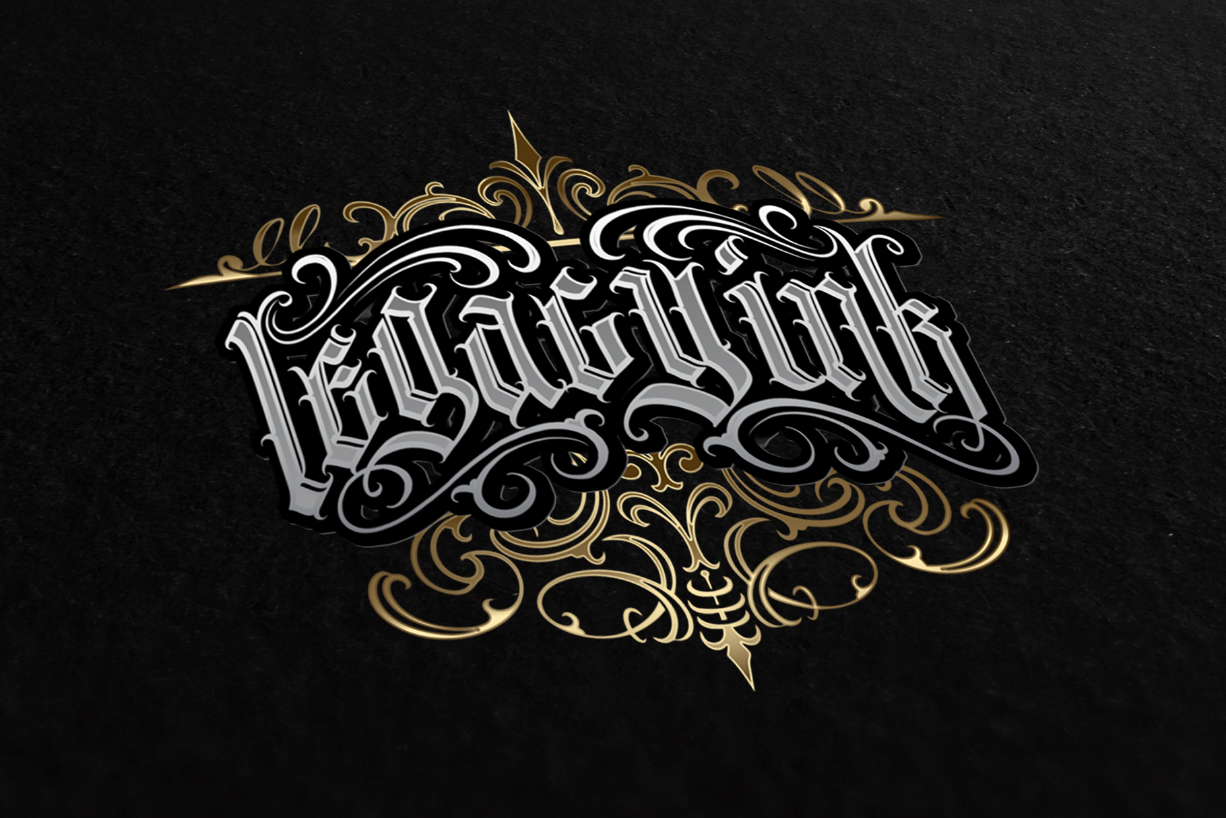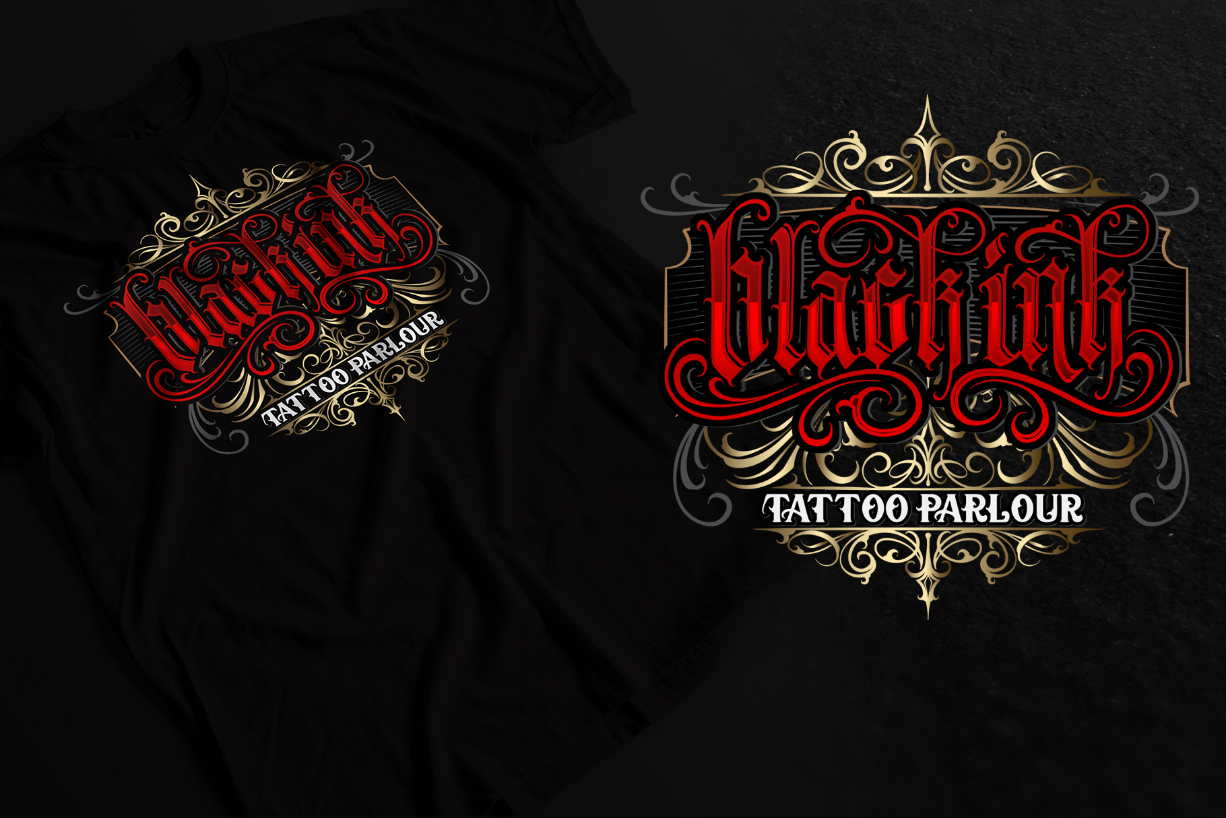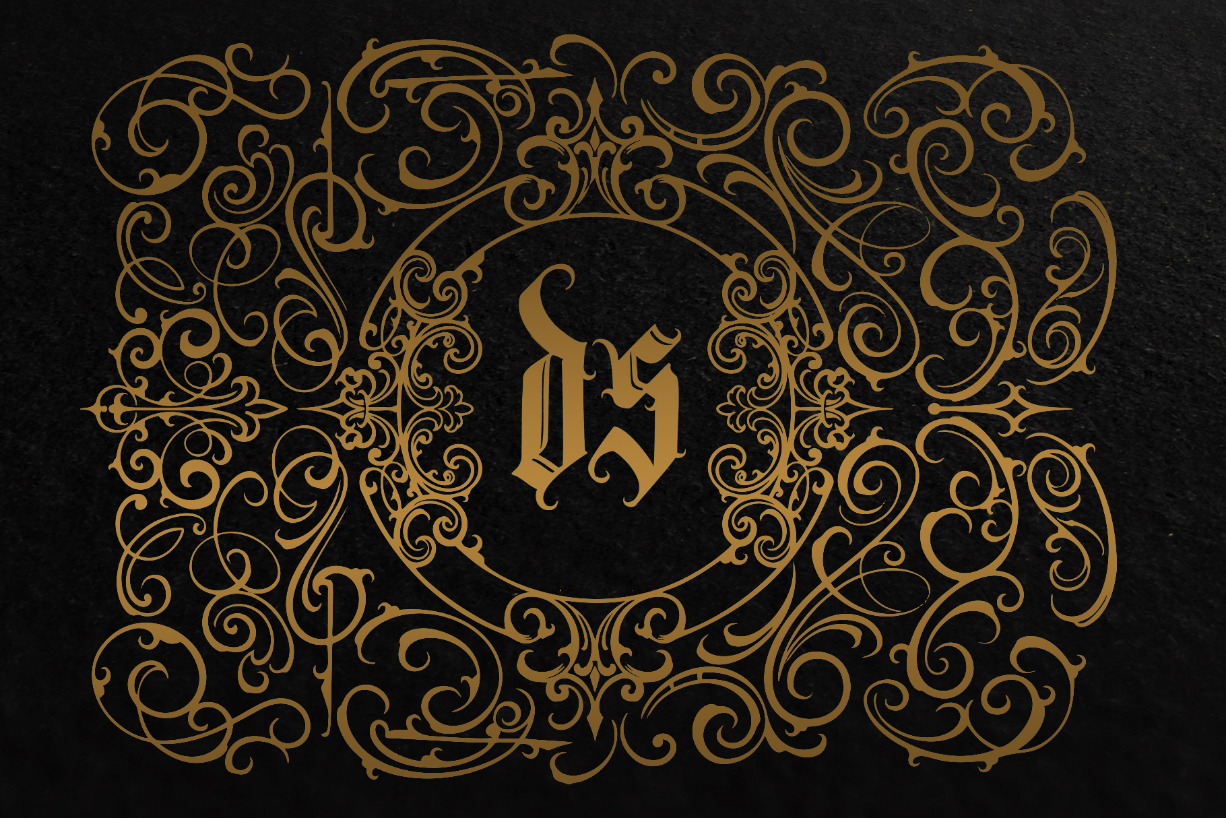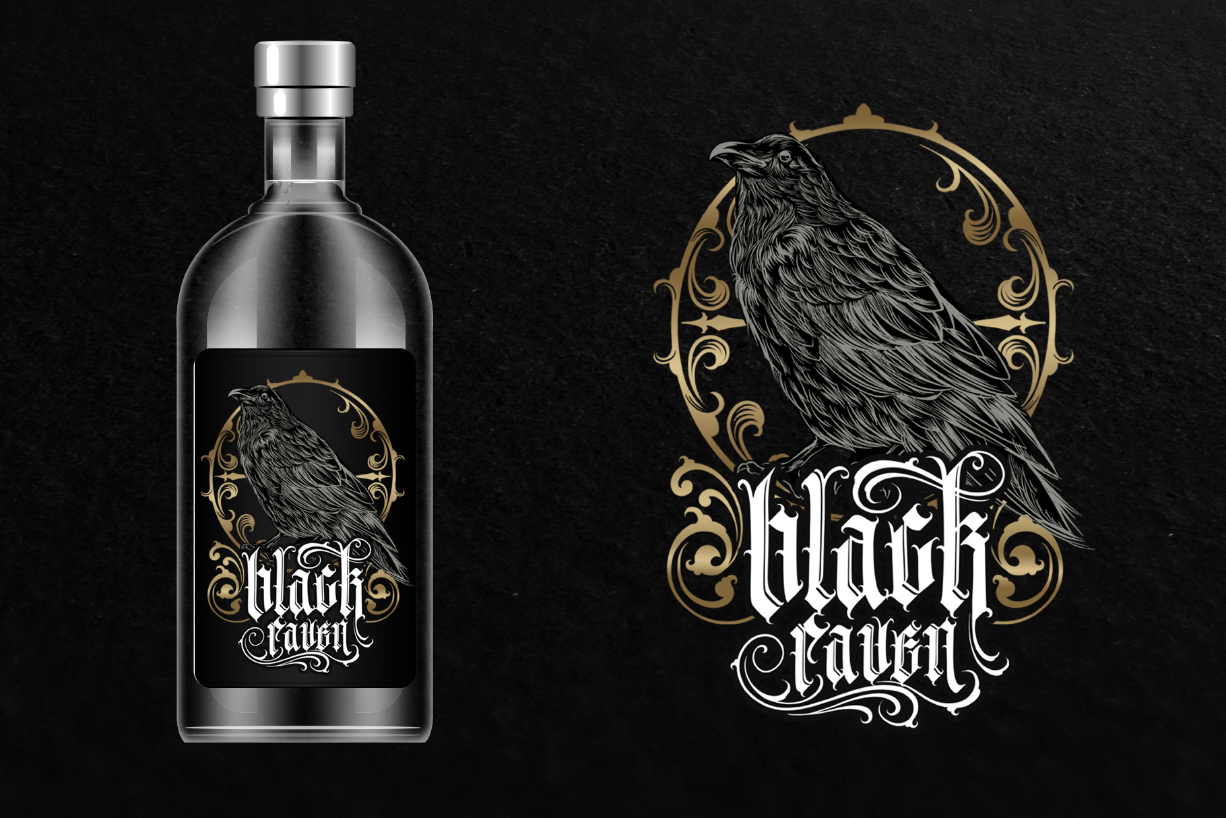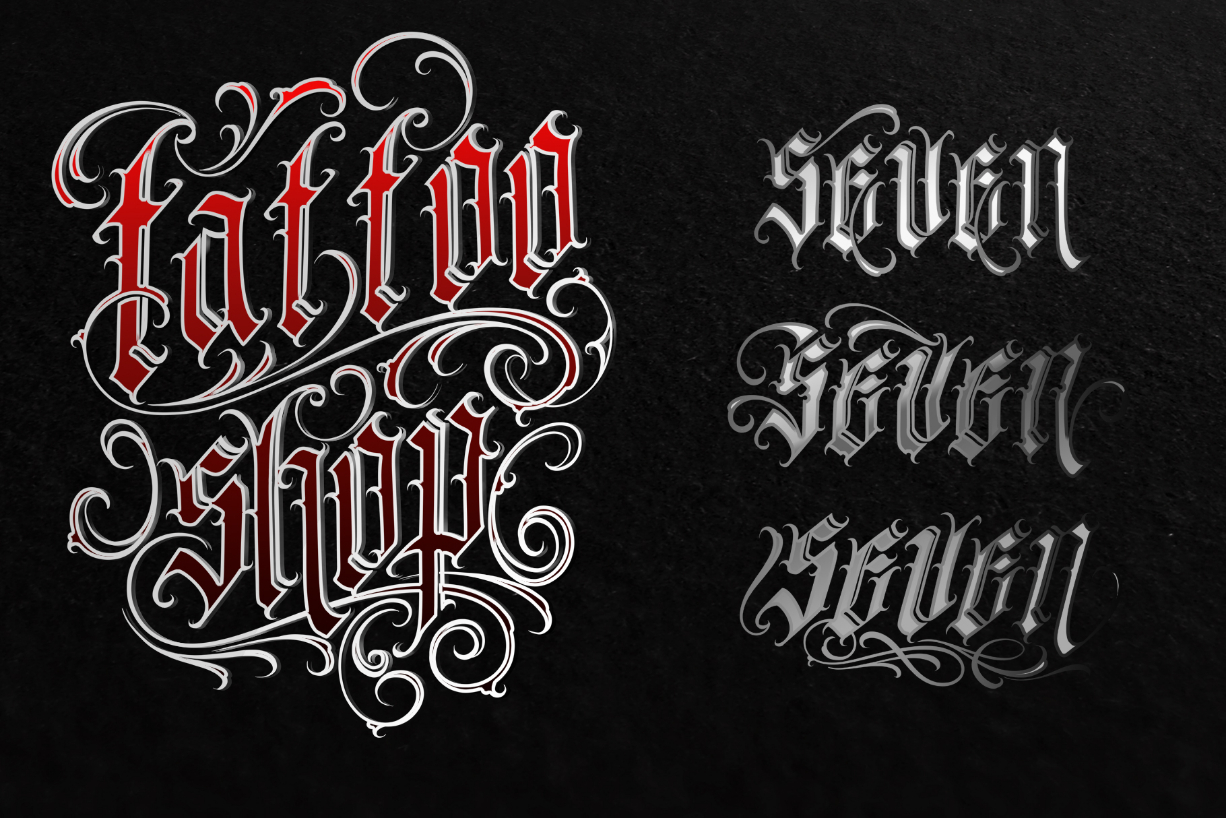
Sinner Font
About Sinner Font
Sinner is an incredibly unique and distinct blackletter font. Masterfully designed to become a true favorite, this font has the potential to bring each of your creative ideas to the highest level!